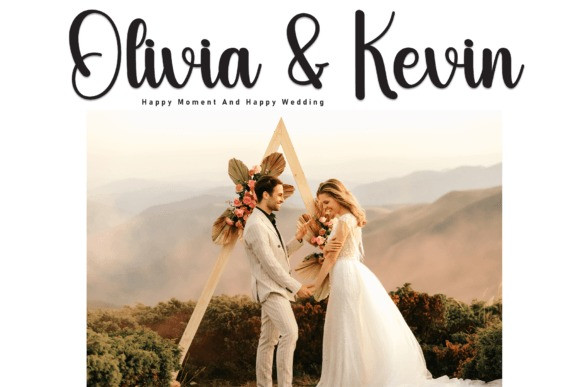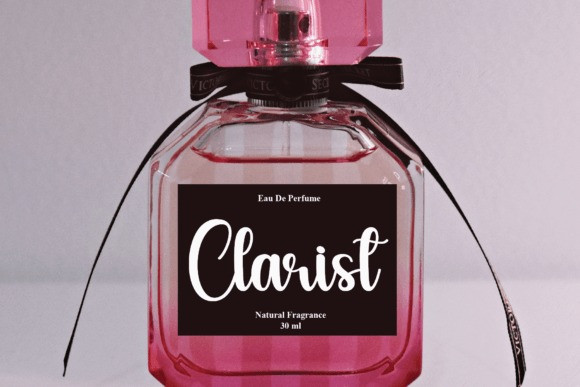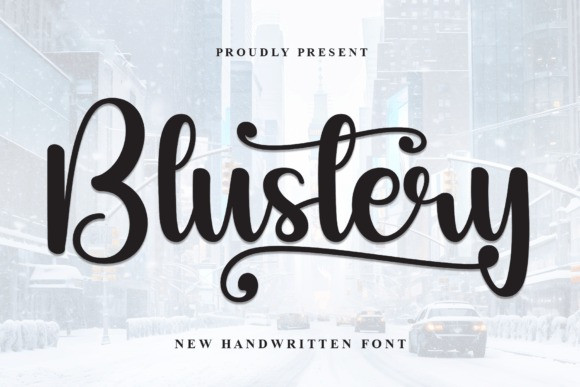
Blustery Script Font
Blustery Script Font is a sweet and friendly handwritten font. Its natural and unique style makes it incredibly fitting to a large pool of designs. The only limit is your imagination!